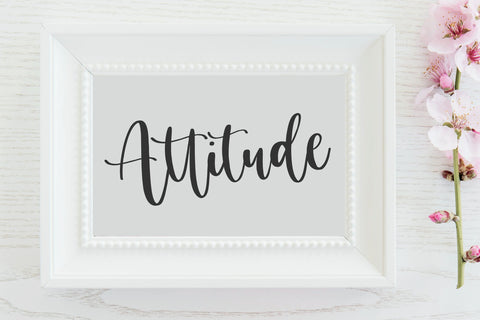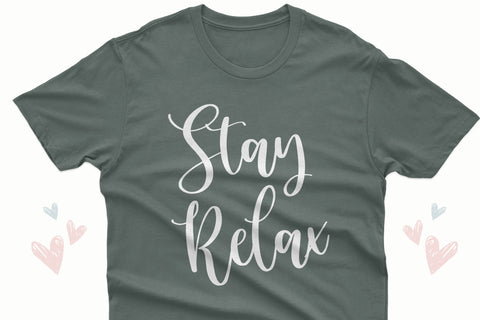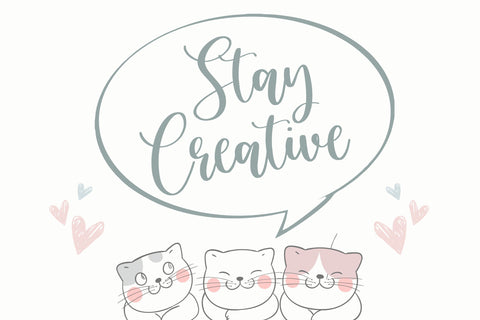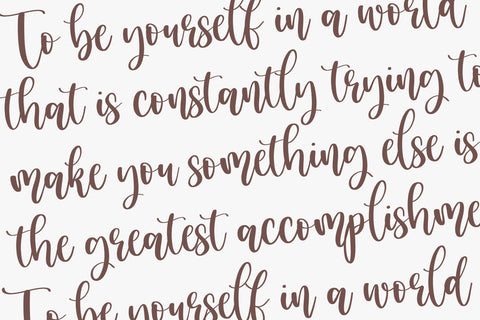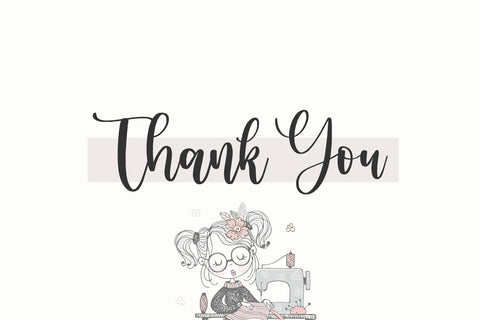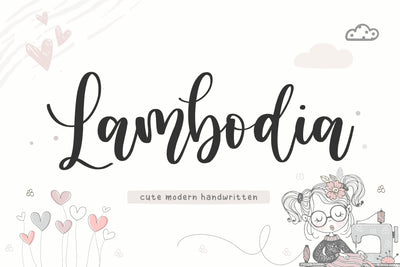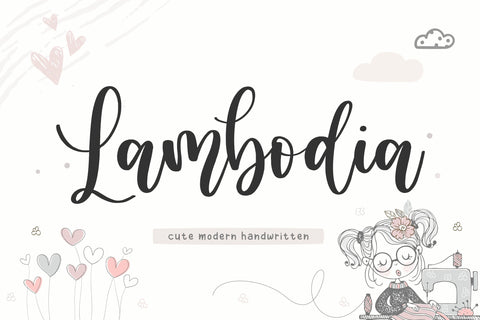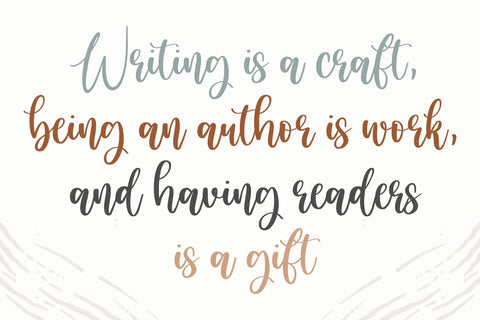
Lambodia Cute Modern Handwritten font
Proudly Present, Lambodia Font.
Lambodia is a Cute Modern Handwritten font.
Lambodia is perfect for product packaging, branding project, megazine, social media, wedding, or just used to express words above the background.